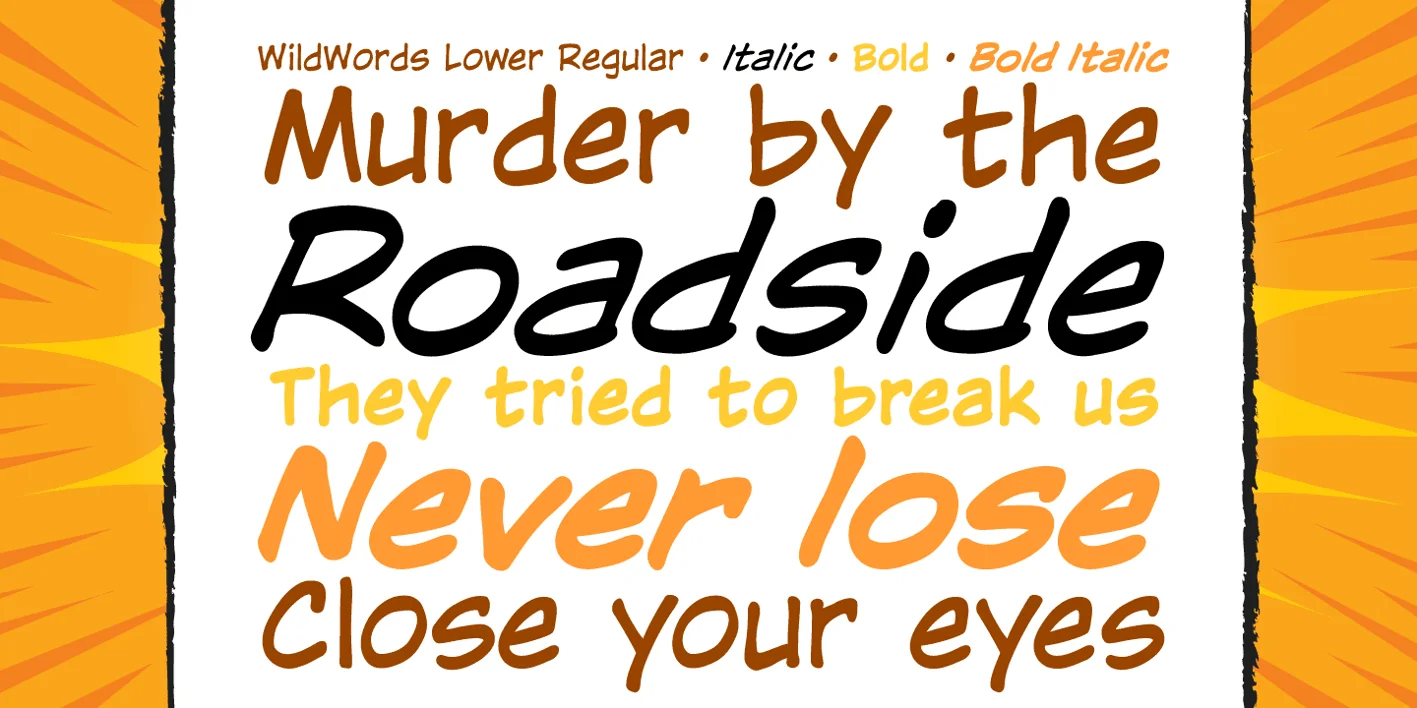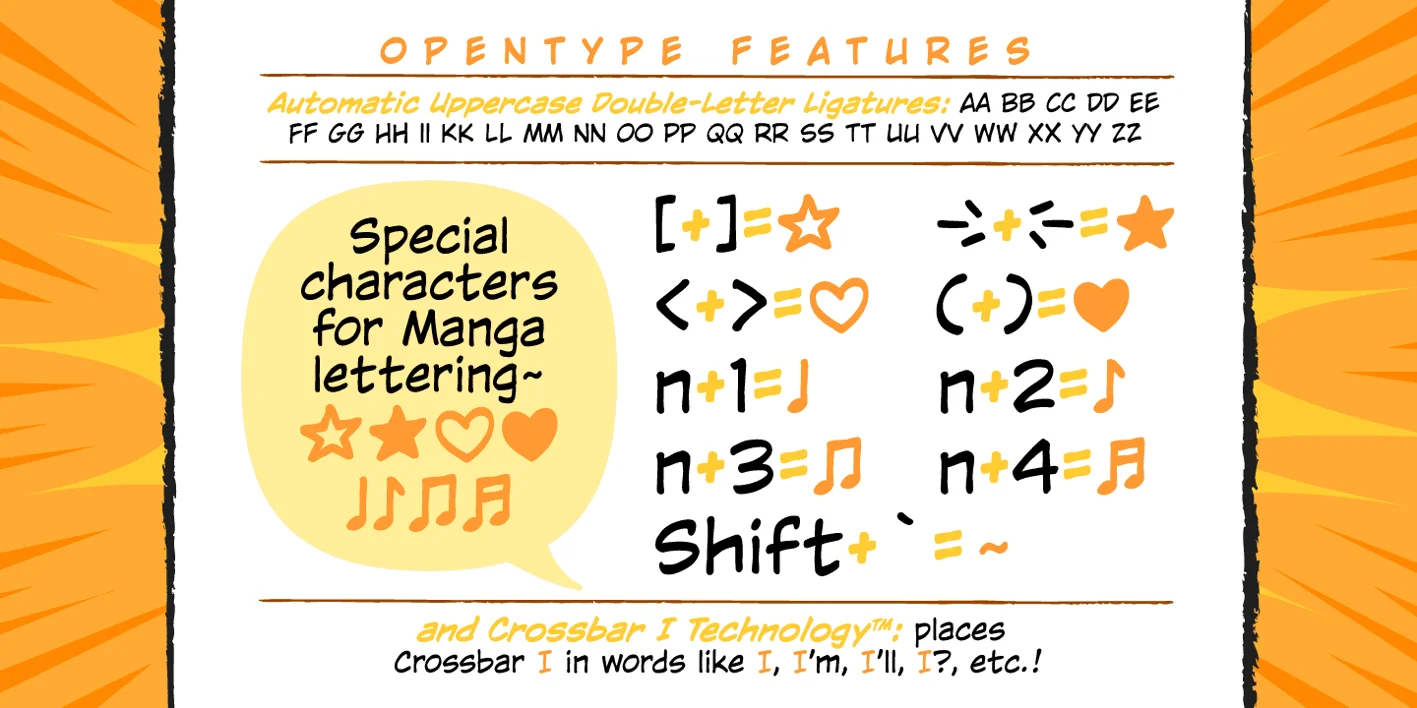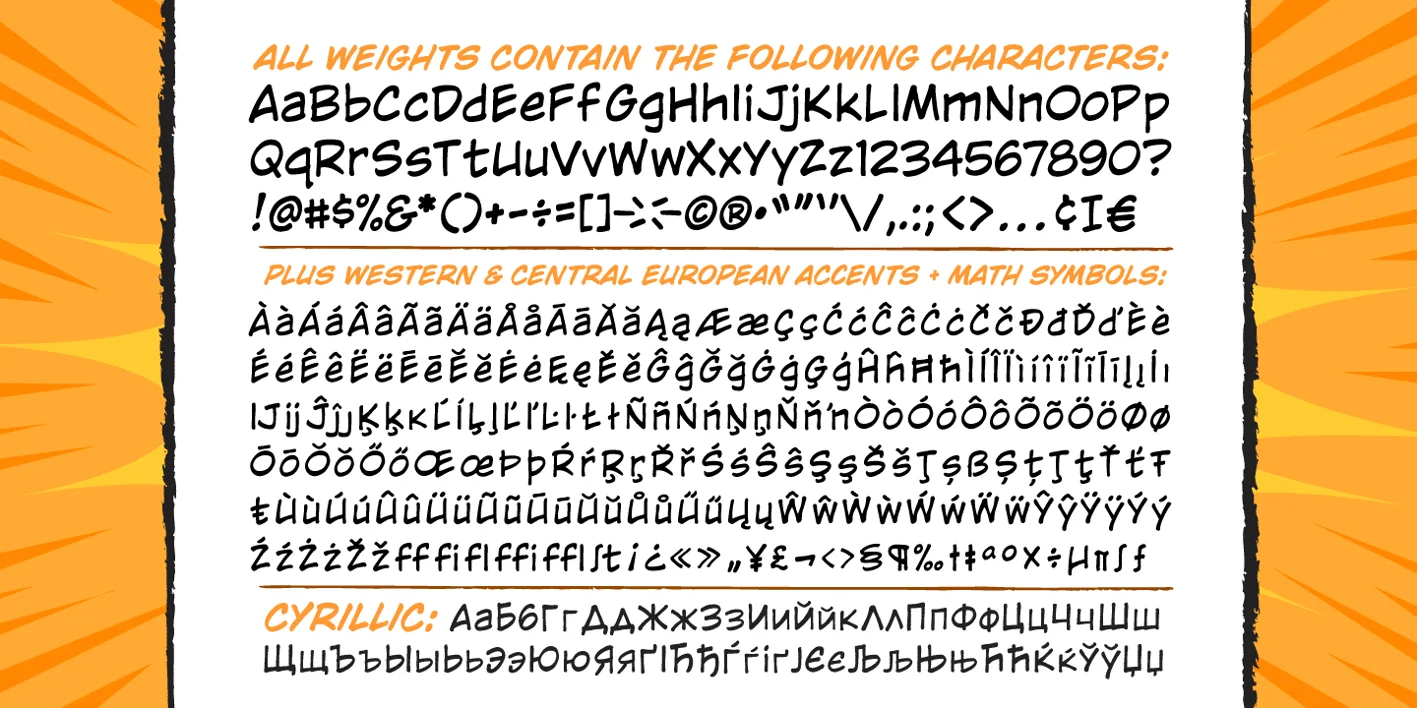
WildWords Lower Font
Few typefaces manage to balance optical balance across all weights with genuine day-to-day practicality. WildWords Lower is one of them. The typeface brings a versatile sensibility to a broad range of creative disciplines, with visual harmony and precise spacing that holds up whether the work is print-first or screen-first.
In practice, WildWords Lower proves particularly effective for social media graphics, signage systems, editorial layouts, advertising campaigns, web design. Designers reaching for it find that the type decisions feel resolved rather than laboured — a useful quality when client timelines are tight.
The range of applications extends to product labels, poster creation, brand identity systems, environmental graphics. That breadth is deliberate: the proportions and spacing were stress-tested across a wide range of mock briefs before the typeface was finalised.
Spacing and kerning pairs have been individually reviewed for the most common letter combinations in English and major European languages. The result is even type colour across continuous text, with no awkward gaps or collisions between adjacent characters.
WildWords Lower sits comfortably alongside both classic and contemporary typefaces in multi-font hierarchies. It takes direction rather than competing for attention — a quality that experienced designers know is harder to find than it appears.
Freelance designers across print and digital disciplines find WildWords Lower a reliable choice for projects that demand both personality and restraint. The design avoids the self-conscious quirkiness that dates quickly, settling instead for considered distinctiveness that holds up over time.